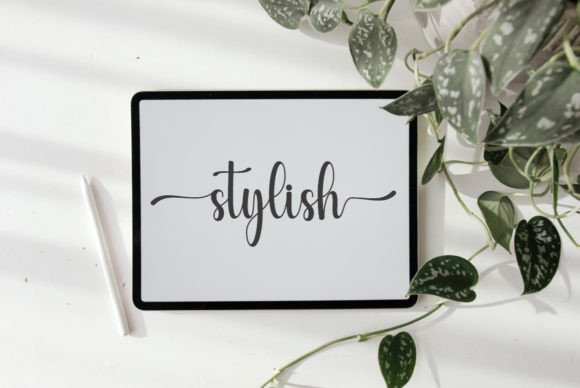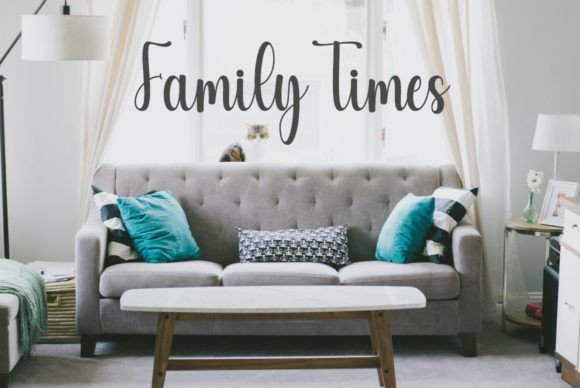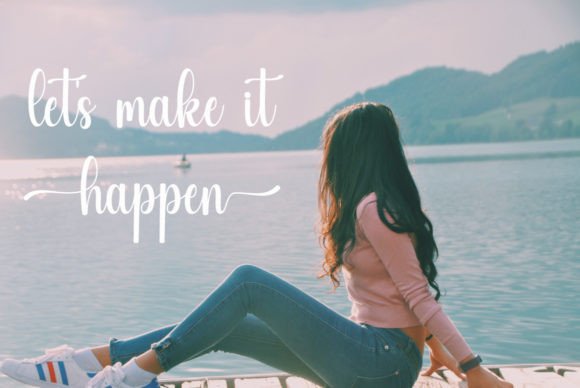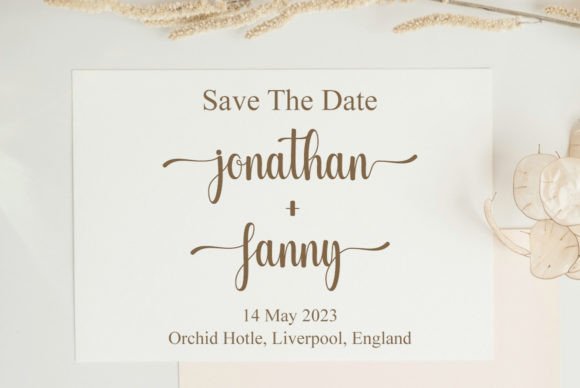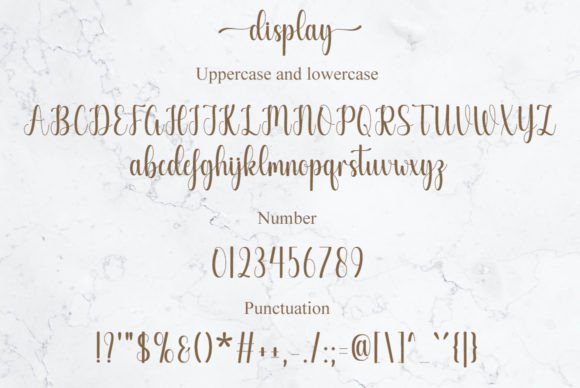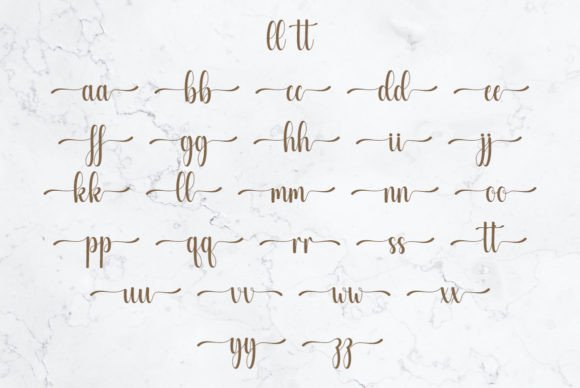
The Elegance of Display Font: A Designer’s Delight
I’ll never forget the time I was working on a wedding invitation project, and my client asked for a font that was both elegant and handwritten. I scoured the internet, tried countless fonts, but nothing seemed quite right. That was until I stumbled upon Display Font. It was love at first sight! 💕 The stylish, elegant, and incredibly handwritten feel of this font made it perfect for the project. In this article, I’ll share my experience with Display Font, its features, and how to make the most of it in your designs.
An Honest Review of Display Font
- ✨ Stylish and elegant handwritten feel
- 💕 Perfect for wedding invitations, thank you cards, quotes, and more
- 👍 Highly versatile and can be used for various design projects
While Display Font is an amazing font, there are a few things to keep in mind:
- ⚠️ Some users may find the font a bit too ornate for certain projects
- 🤔 Limited availability of certain characters or symbols
The Backstory of Display Font
Display Font was created with the intention of providing a beautiful, elegant handwritten font for designers and crafters. The designer aimed to create a font that would evoke a sense of sophistication and style, while still being approachable and friendly. The result is a font that has become a favorite among designers and hobbyists alike.
| Font Name | Display Font |
| Author | Hardiboy Design |
A: PUA (Private Use Area) encoding allows for easy access to glyphs and swashes, making it simpler to use the font’s advanced features.
Q: Is Display Font suitable for body text?
A: While Display Font is stunning, it’s best suited for headlines, titles, and short text elements. For body text, a clearer font may be more suitable.